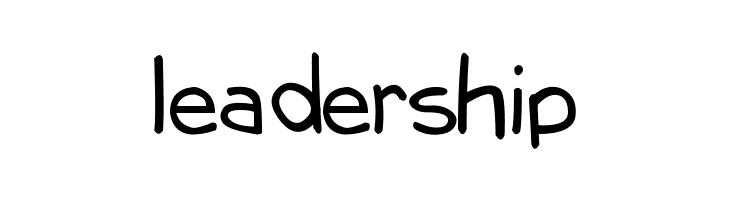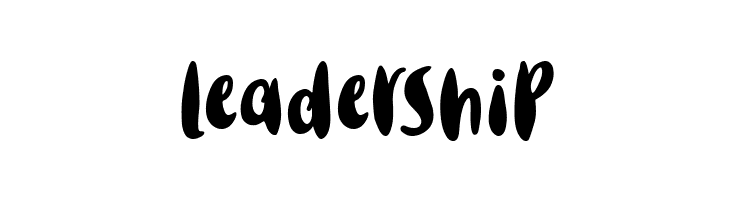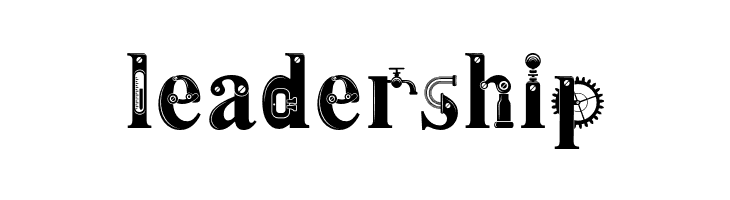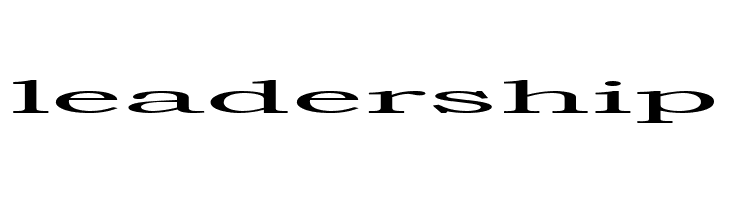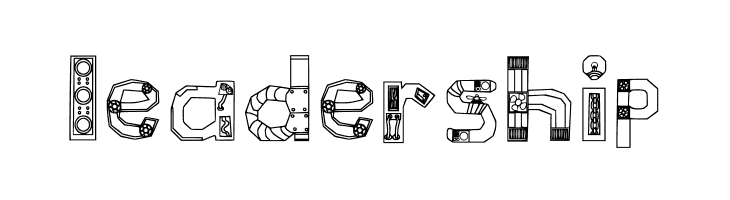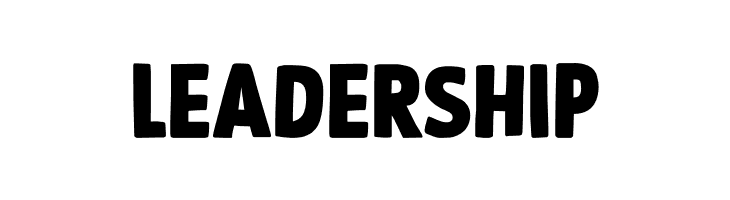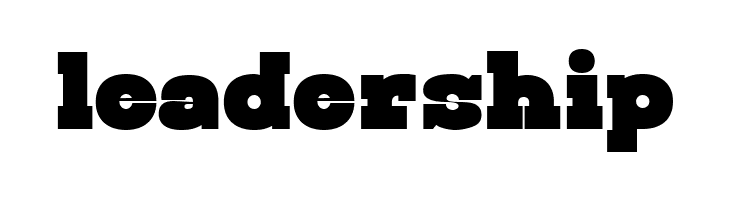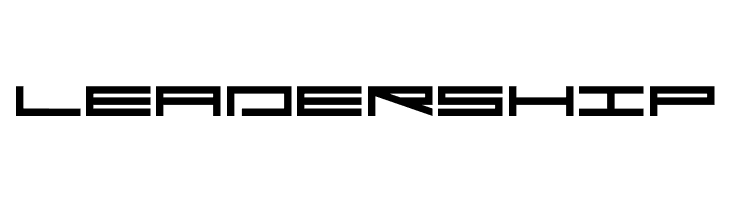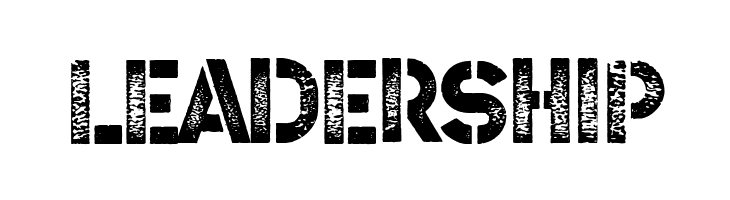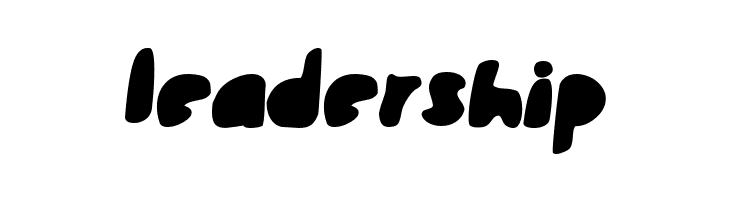
A bold, playful font with thick, rounded characters and quirky symbols.
A bold, playful handwritten font with a lively and energetic style.
A playful, bold font with a hand-drawn, whimsical style and unique noodle bowl symbols.
Not a valid font; resembles gaming tokens or dice.
A decorative, steampunk-inspired font with intricate patterns in square frames.
A bold, decorative font with steampunk-inspired gear embellishments.
A whimsical, steampunk-inspired italic font with gear-like details.
A bold, blocky font with a strong, industrial aesthetic.
A steampunk-inspired font with intricate machinery and industrial design elements.
A bold, playful font with rounded, smooth edges and a whimsical style.
A classic serif font with elegant curves and sharp edges, perfect for a timeless look.
A bold, textured font with a stippled, dotted appearance ideal for creative projects.
A bold, geometric font with an industrial, steampunk aesthetic.
A bold, angular font with a mechanical, steampunk-inspired design.
A bold, industrial font with sharp, angular edges and a vintage feel.
A bold, angular font with a vintage yet modern style, perfect for impactful designs.
A bold, italicized font with sharp angles and a dynamic, edgy appearance.
A bold, italic font with sharp angles and a dynamic, modern style.
A steampunk-inspired decorative font with intricate mechanical details.
A steampunk-inspired decorative font with mechanical elements and vintage flair.
A lively, brush-style handwritten font with dynamic strokes.
A bold, gothic-inspired display font with sharp, armored edges.
A bold, angular font with a futuristic and geometric design.
A bold, futuristic font with geometric and industrial elements.
A bold, futuristic font with geometric and industrial design elements.
A playful, hand-drawn font with rounded, comic-like characters.
A bold, distressed font with a rugged, industrial aesthetic.
A futuristic, geometric font with sharp angles and a mechanical feel.